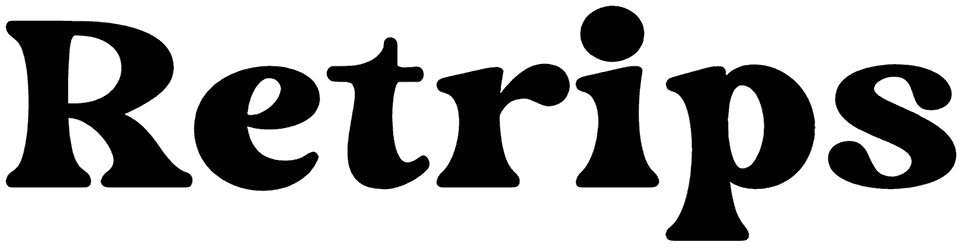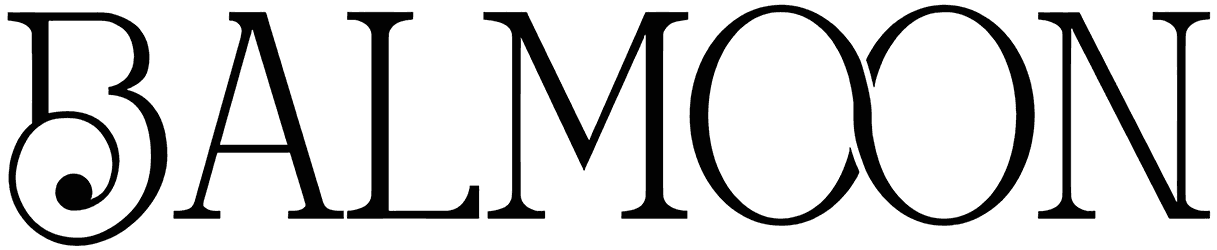
Hacky Font
Serif fonts have always preserved their peculiar place in the heart of designers! If you are one of them, be sure to see Hacky. This classic font, while showing its gentry, has a personal, subtle style in the letters. You can set Hacky as a general-purpose font, in any design like branding, posters, ads, covers, and more.
Designed by: MadeDeduk